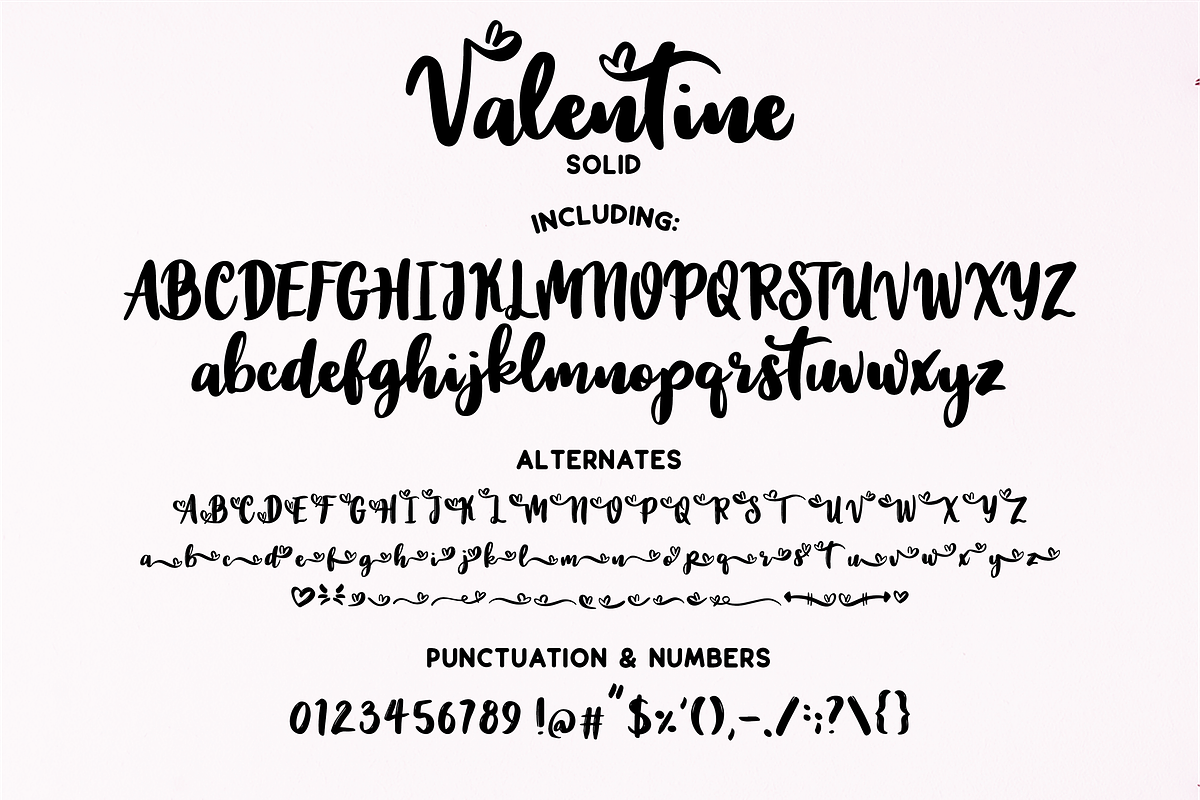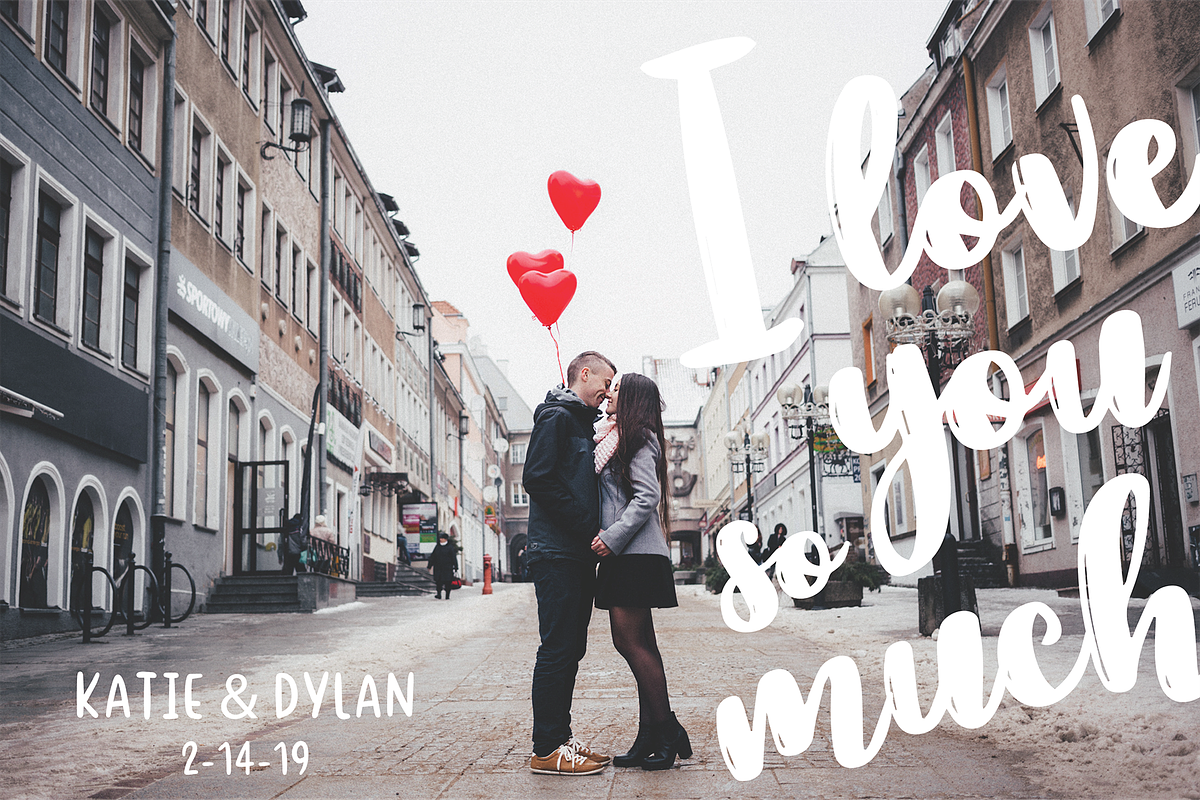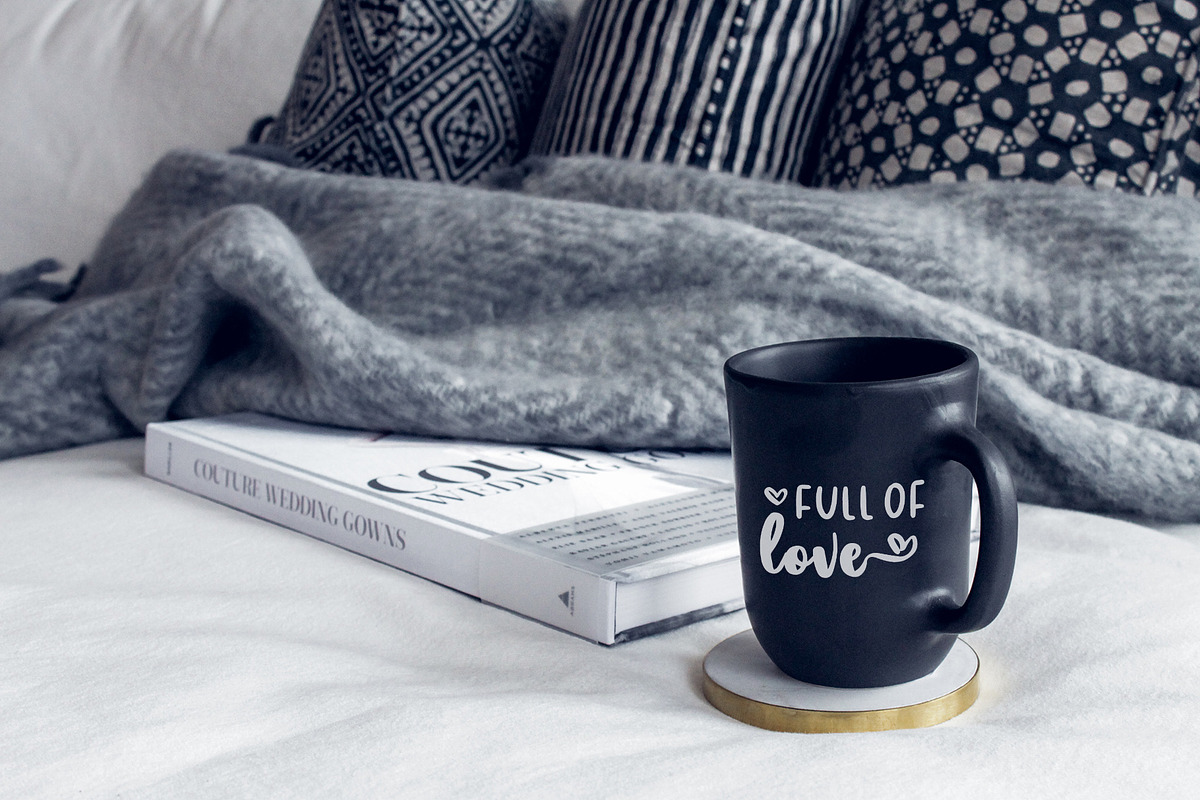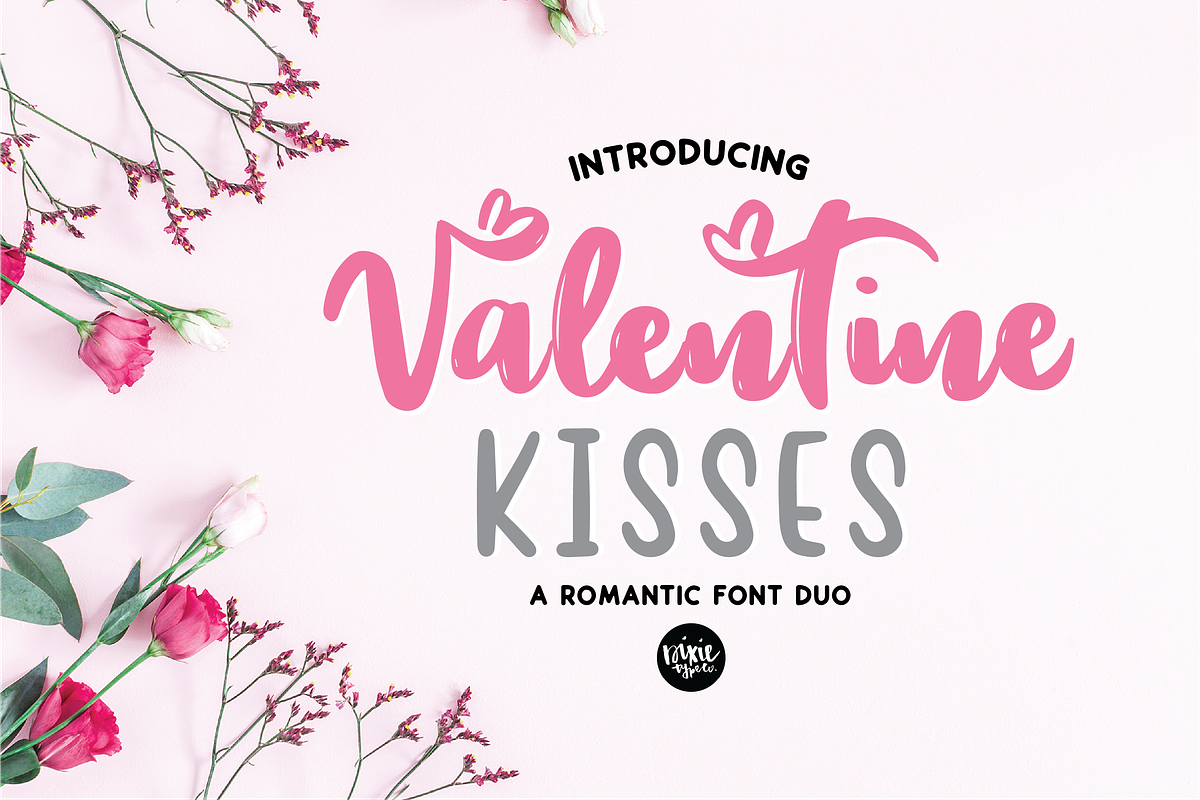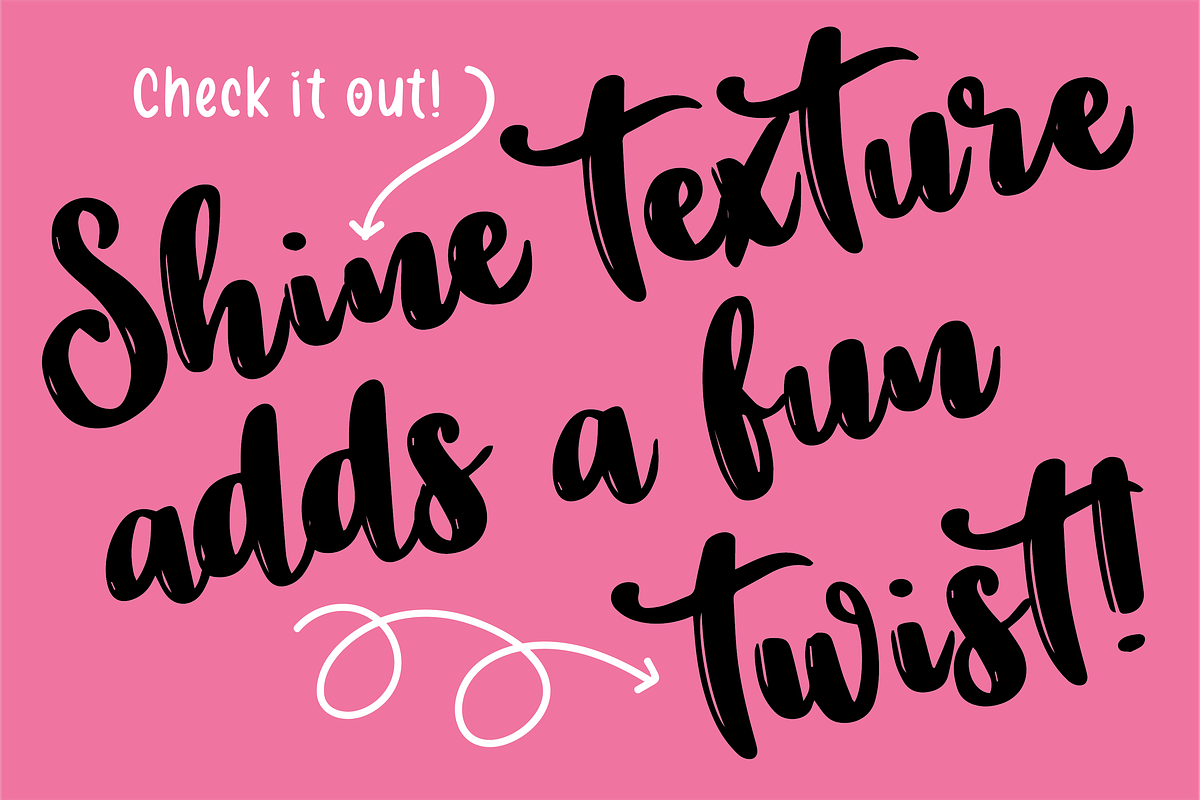
VALENTINE KISSES Script Sans Duo
{ A typographic font hand lettered with love by Dixie Type Co. }
This download includes: DTC Valentine Regular ("shine" textured version) DTC Valentine Alternates ( a heart flourish attached to each letter) DTC Valentine Solid (Solid and clean cuttable version) DTC Valentine Solid Alternates (( a heart flourish attached to each letter) DTC Kisses (Regular Sans) DTC Kisses Alternates (All letters with hearts)
Valentine Kisses is the perfect combination for your Valentine's Day or wedding projects. Use it for Valentine's cards, crafts for decor, invitations, and more! This pair is very cute together! The hand lettered script and sans compliment each other perfectly! Both fonts include numbers and some basic punctuation marks.